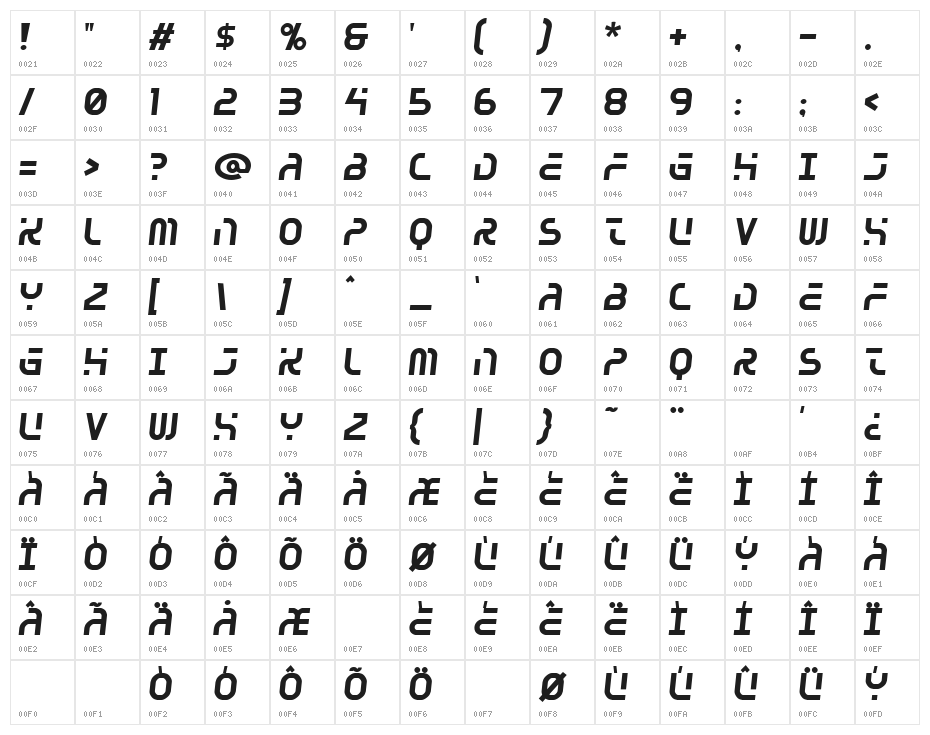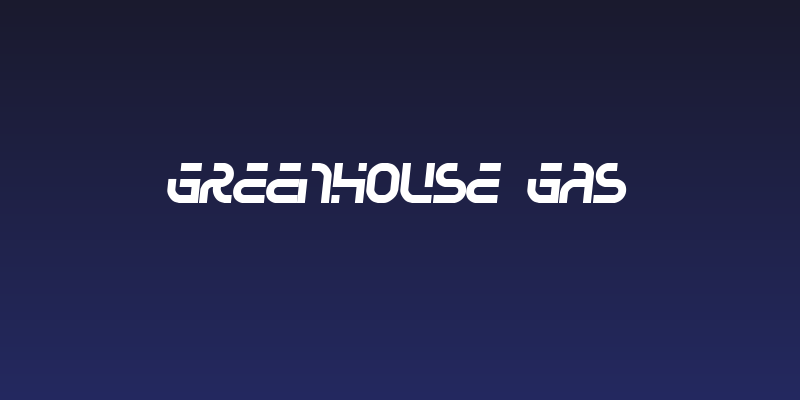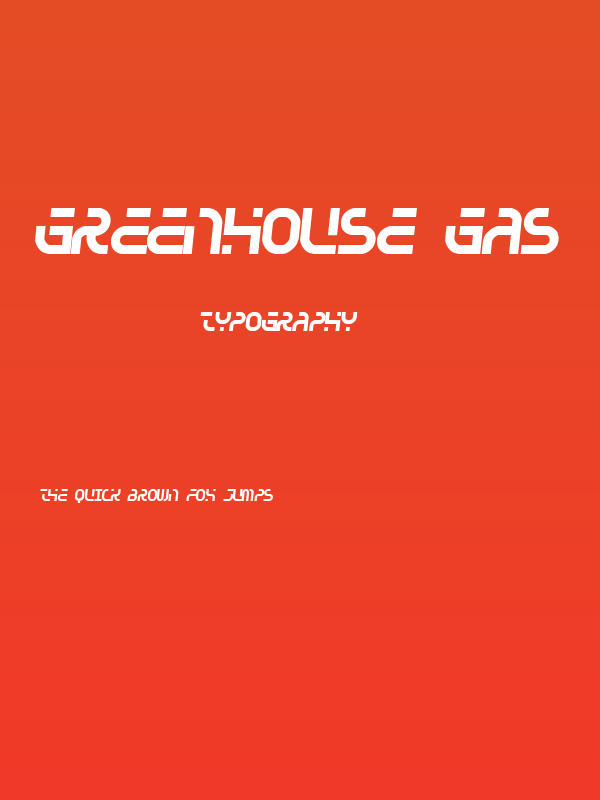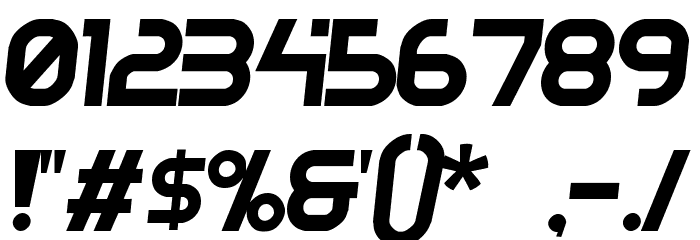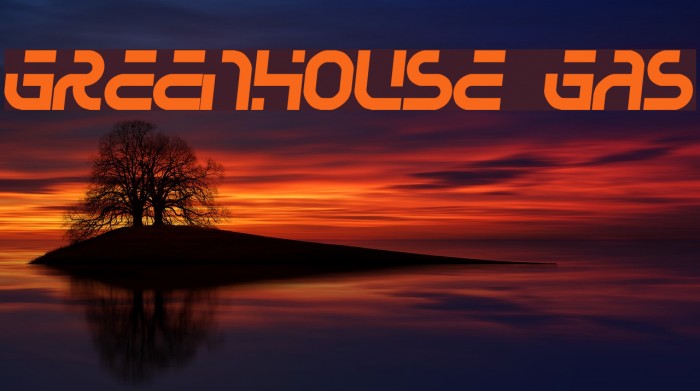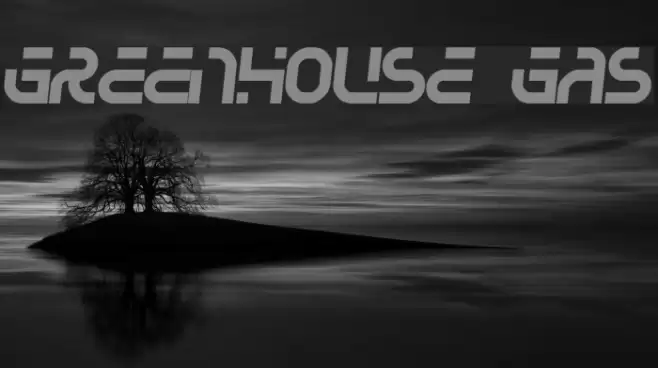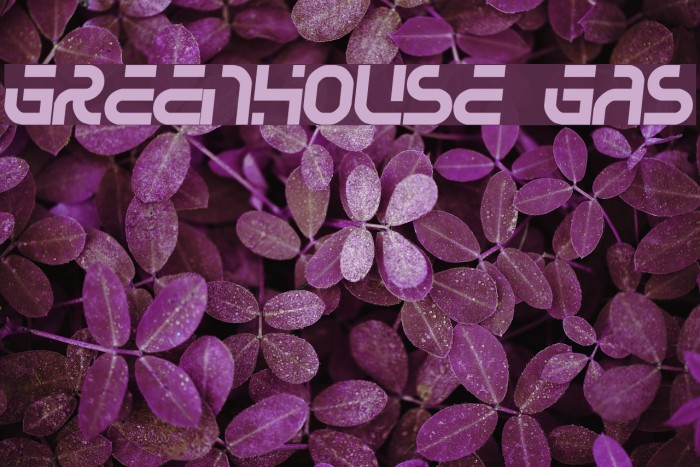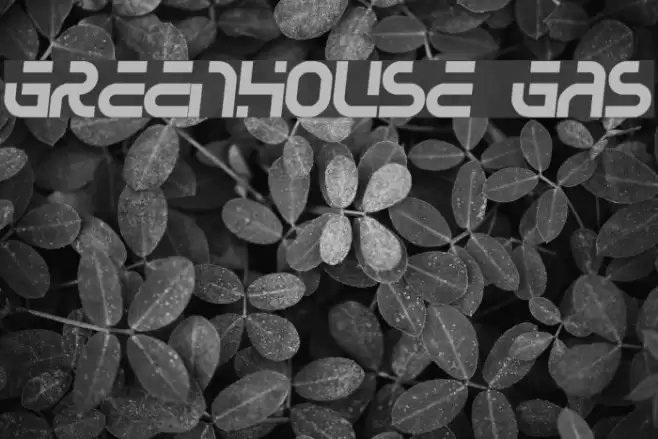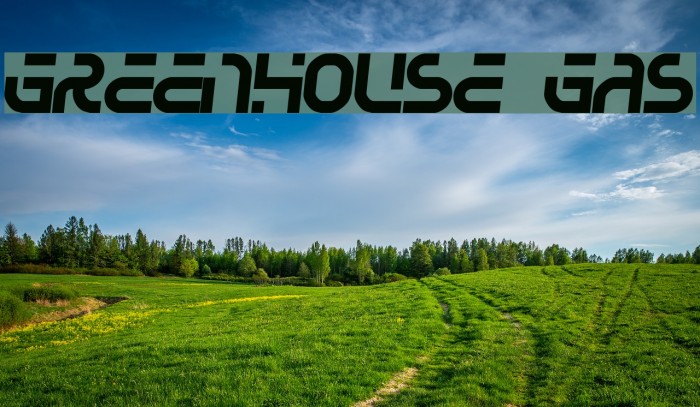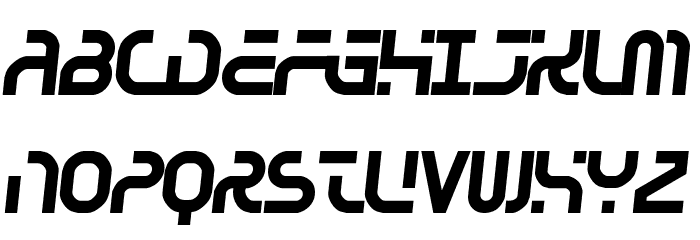
Greenhouse gas Font
Greenhouse gas Description
This font features a bold and futuristic design with a unique geometric structure. The characters are crafted with sharp angles and smooth curves, creating a dynamic and modern appearance. The uppercase and lowercase letters maintain a consistent style, with a slight slant that adds to the forward-moving aesthetic. The numerals and special characters are designed to match the overall theme, ensuring a cohesive look across all text elements. This font is ideal for projects that require a contemporary and innovative touch, such as technology branding, modern advertising, or digital interfaces.
| Overall Style | Futuristic |
| Use Case | Headlines, Logos, Digital Interfaces |
| Proposed Projects | Ideal for technology branding, modern advertising, digital interfaces, and innovative design projects. |